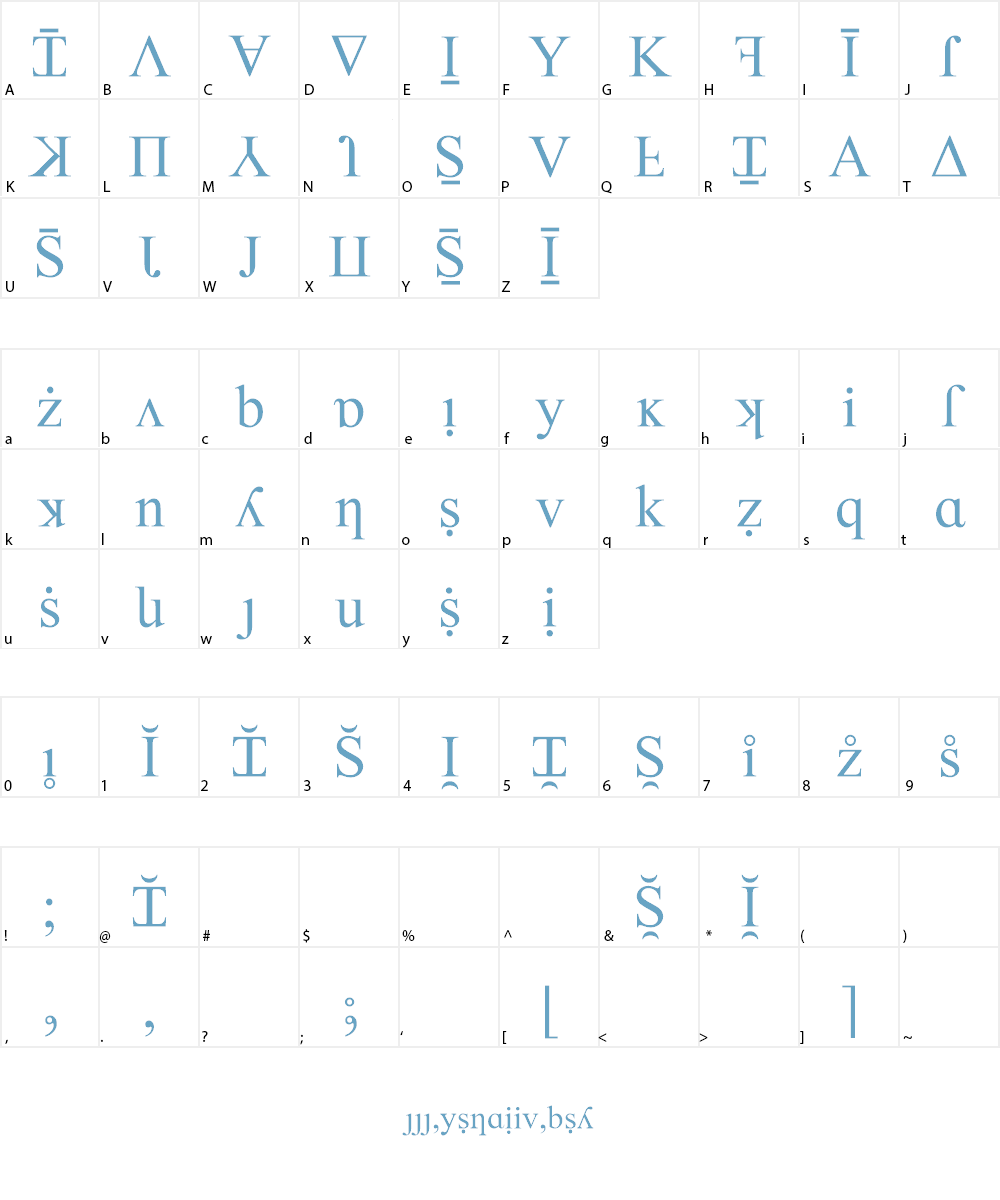
These fonts are made for ny conlang Patigulh(https://conlang.fandom.com/wiki/Patigulh). Therefore these fonts should't be used as normal ones.
Yes these fonts are made from other famous(and infamous) fonts.